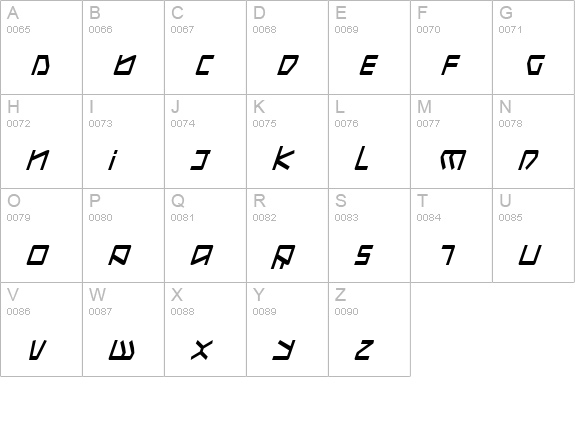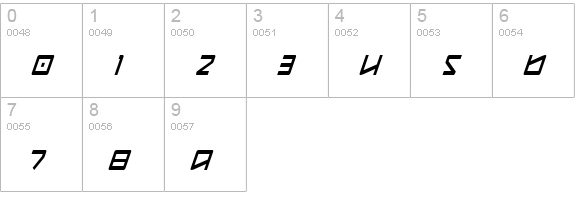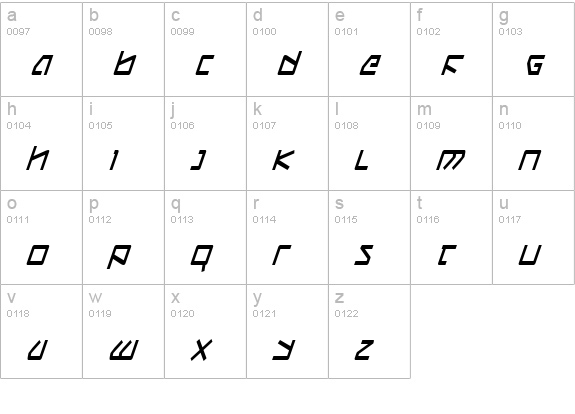
Kobold Condensed Italic is a distinctive, condensed-width, italic variant in the Kobold typeface family \xE2\x80\x94 well suited to design and typography projects.
Kobold Condensed Italic font exudes a sleek and modern aesthetic, perfect for adding a touch of sophistication to your designs. The italicized variation of the Kobold typeface adds a dynamic and elegant flair, making it ideal for headlines, titles, and other display purposes. Its condensed form allows for efficient use of space without sacrificing readability. This versatile font is suitable for a wide range of design projects, from branding and advertising to packaging and editorial layouts. The Kobold Condensed Italic font strikes the perfect balance between style and functionality, making it a valuable addition to any designer's toolkit. Best of all, Kobold Condensed Italic font is completely free to download at FontsMarket.com. Don't miss out on this fantastic opportunity to enhance your designs with this high-quality typeface. Download it today and elevate your projects with the timeless elegance of Kobold Condensed Italic font.